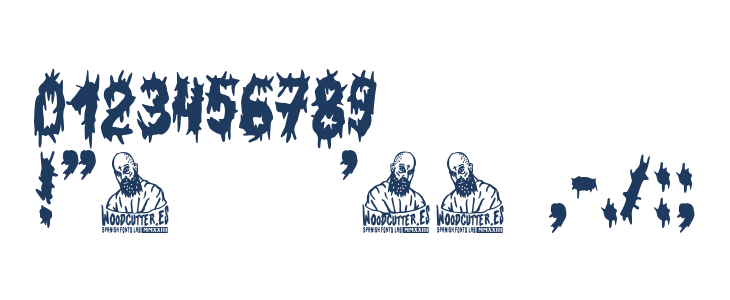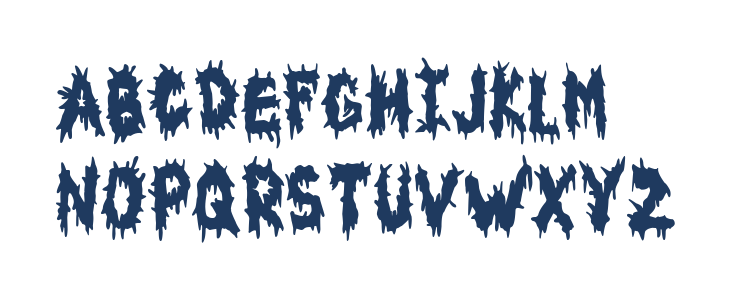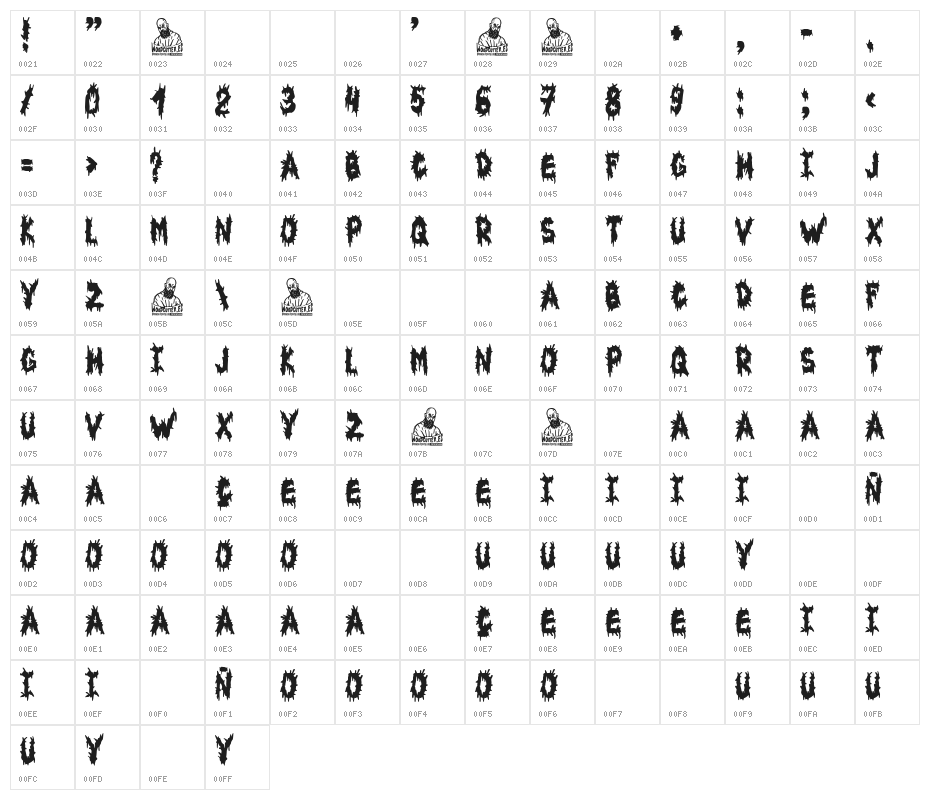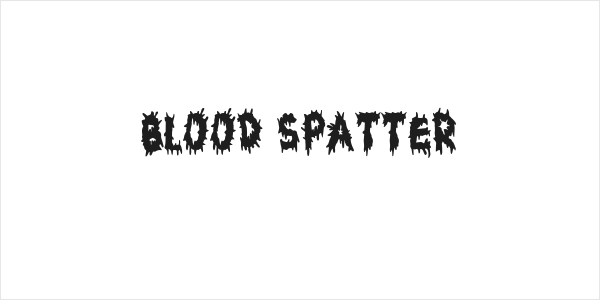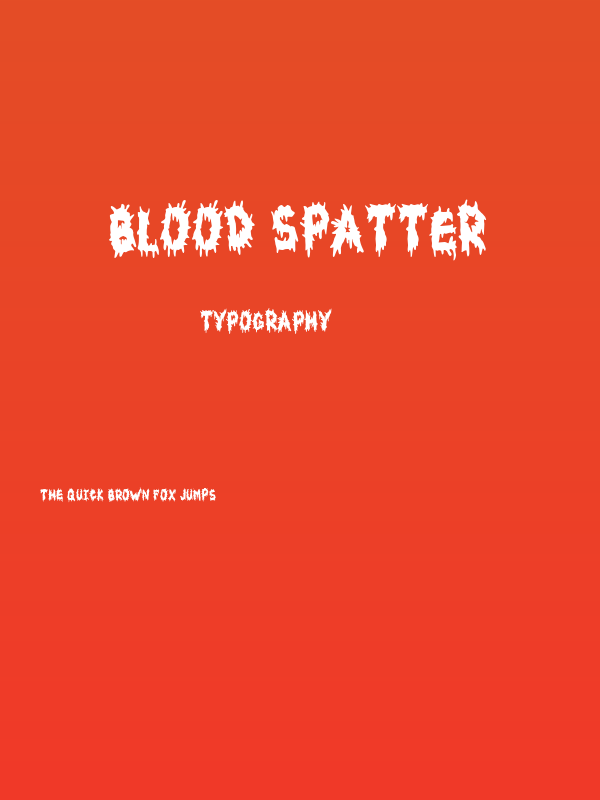
Blood Spatter Font
Blood Spatter Description
A highly decorative, horror-themed typeface with irregular, jagged edges and dripping effects that mimic the appearance of splattered blood. The characters are bold, uppercase, and have a chaotic, uneven structure, making them visually striking and suitable for attention-grabbing designs.
Overall StyleDecorative, Horror, Grunge
Use CaseHeadlines, Posters, Logos, Themed Graphics
Proposed ProjectsHalloween posters, horror movie titles, haunted house flyers, themed party invitations, escape room branding.